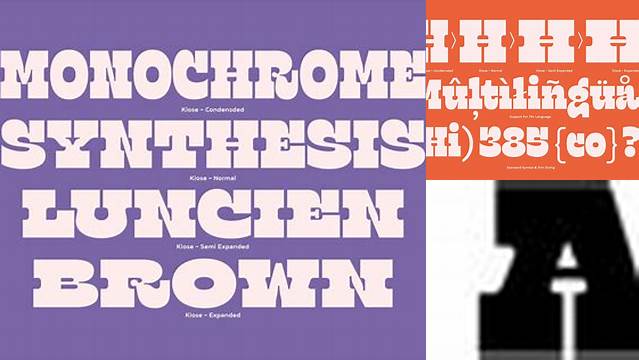
Hey everyone! If you're on the hunt for a bold, attention-grabbing font, then you've probably stumbled upon Klose Slab Expanded. This font family is a fantastic choice for various design projects, from website headers and posters to branding materials and everything in between. The best part? You can often find a Klose Slab Expanded font free download! In this comprehensive guide, we'll dive deep into everything you need to know about this awesome font, where to snag it for free, and how to use it effectively. Get ready to unleash your creativity!
H2: Discovering the Allure of Klose Slab Expanded Font
Let's kick things off by understanding what makes Klose Slab Expanded so special. This font, known for its robust and expanded appearance, is a variation of the popular Klose Slab font family. Its distinctive features include thick, block-like serifs, which give it a strong and commanding presence. This makes it ideal for headings, titles, and any design element where you want to make a bold statement. The 'expanded' aspect means the letterforms are wider than the standard Klose Slab, further enhancing its visual impact. This expanded width is perfect for catching the eye and ensuring your message gets noticed. Because of its powerful aesthetic, Klose Slab Expanded is a favorite among designers. Its versatility allows it to blend seamlessly with various design styles, from minimalist to vintage-inspired projects. The key is understanding how to pair it with other fonts and design elements. The font's readability, even at larger sizes, makes it a go-to choice. It ensures your audience can easily grasp the message you are trying to convey. This font is excellent for branding, allowing companies to project strength and professionalism. For those who value clarity and impact in their design, Klose Slab Expanded is a valuable asset. Its availability as a free download makes it accessible to a broad range of users, regardless of their budget. This accessibility is a game-changer, democratizing good design and empowering everyone to create visually stunning projects. The bold serifs are a signature aspect. The design ensures that your text remains legible and impactful, even from a distance. Using Klose Slab Expanded, you can transform your designs into visually engaging masterpieces. Whether you're creating a website, designing a poster, or crafting a logo, the font helps ensure that your message is clearly and powerfully communicated.
H3: The Unique Characteristics of Klose Slab Expanded Font
Let's delve deeper into the specifics that set Klose Slab Expanded apart. The most immediately noticeable trait is its expanded form, with wider letterforms that instantly grab attention. This width enhances its readability, especially in headlines and titles, making your text pop. The thick, prominent serifs contribute to its robust and sturdy appearance. This characteristic gives the font a solid foundation, implying strength and reliability. These serifs help to guide the eye across the letters. This design contributes to enhanced readability, making the font excellent for displaying important information. The font's design balances boldness and clarity, which makes it ideal for a diverse range of applications. The font's aesthetic is equally at home in modern and vintage-inspired designs. This versatility allows it to adapt to any project’s mood. The font's ability to convey a sense of authority and impact makes it a good choice for branding and promotional materials. Furthermore, Klose Slab Expanded often includes a variety of weights and styles, such as bold, italic, and regular. This variety enables designers to add layers of visual interest and maintain consistency across various design elements. The font's popularity is due to the balance of style, readability, and visual impact. This font is more than just a typeface; it is a tool that helps you effectively communicate your message, make a strong statement, and leave a lasting impression. Its unique characteristics make it a favorite. It is the perfect blend of power, clarity, and design versatility. Access to a free download makes it even better.
H2: Optimizing Klose Slab Expanded Font for Web and Print Design
Once you've secured your Klose Slab Expanded font free download and understand the licensing, it's time to optimize it for your design projects. This section covers tips for web and print design, maximizing the font's impact while ensuring readability and visual appeal. When using Klose Slab Expanded for web design, it's essential to consider its legibility on various devices. Choose appropriate font sizes, especially for body text, to ensure users can read it comfortably on different screens. Use the right font size. A font size of 24-36 pixels is great for headings. Also, for body text, use a font size between 16-18 pixels. Make sure you're using the font at the right size. Optimize your font weight. Thinner weights may appear light on the screen. Stronger weights may be harder to read. Adjust the spacing. Adjust the letter spacing and line height for the best readability. Ensure sufficient contrast. Using it against a light background, such as white, will improve legibility. Test your design on a range of devices and browsers. You can be sure that your design will work as intended. For print design, Klose Slab Expanded shines in titles, headlines, and posters. Select the appropriate font size for your project. You should choose the size. Keep in mind that the font should complement other design elements. Consider the paper type. This will help you decide whether or not to use a bold font. It will help you determine the weight. A higher-quality paper will show the details of the font. Test the print. Printing a small sample of your design will help you determine the impact of your design. Remember to adjust the size to best fit your design. Your adjustments will allow for the best results. Correct spacing is key for readability. Adjust the tracking, leading, and kerning for the best result. You need to ensure that you have the right balance. This will help improve the legibility of your design. Ensure the text is clear. When using this font for print, you should prioritize clarity. You should also prioritize impact. The correct preparation will help you create stunning visual projects. Prioritize the font size, weight, and spacing for the best results. Your work will be legible, clear, and visually striking. Using these adjustments, you can boost the impact of your project and ensure it achieves its intended effect.
H3: Best Practices for Using Klose Slab Expanded in Web Design
Let's delve into the web-specific best practices for utilizing Klose Slab Expanded. When you have your Klose Slab Expanded font free download and you want to use it on your website, there are several things to consider. The size and weight of the font should be a priority. Choose a font size that ensures legibility. A good starting point is a font size of 24 to 36 pixels. Choose a weight that complements your design without appearing overly bold. Test different weights to find the perfect balance. Optimize for responsiveness. Your font must look good on any screen size. This is because the font will scale properly on different devices. Using a responsive design ensures that your design is readable on all devices. Ensure readability. Good contrast is essential for this font's readability. Light-colored text on a dark background makes your design readable. Make sure the text isn't too close together. Check spacing. Adjust your line height and letter spacing for readability. This is a must. Proper spacing improves the visual appeal of your design. Optimize the code. Use web fonts to avoid relying on system fonts. Load the font as efficiently as possible. Use CSS to control the font styling. Use the correct CSS to apply the font. Test and iterate. You should always test your design on various browsers. Check it on different devices, and make adjustments as needed. This will ensure that your website provides a consistently excellent user experience. Consider your audience. Think about the audience's preferences. Make sure your font suits them. The font should be consistent with your brand. Ensure it complements your other design choices. These best practices will help you use Klose Slab Expanded effectively on your website. Remember to focus on readability, responsiveness, and consistency. This will ensure that your website is both visually appealing and user-friendly.